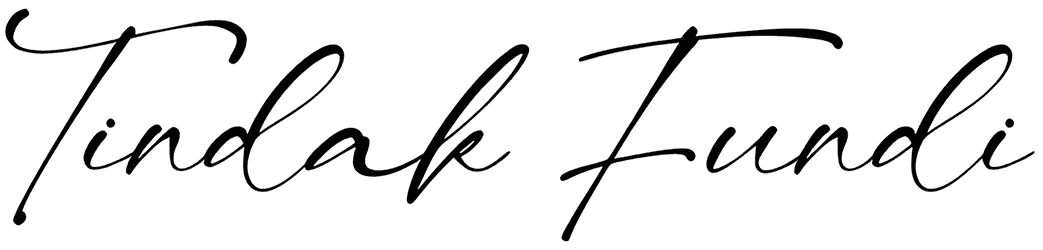
Tindak Fundi Font
If you’re one of those people who always pick handwritten fonts only when there’s casual text to design, Tindak Fundi can show you how wrong you were. Like, isn’t it obvious what an important role elegance plays in the design of this autograph font? Surely it is.
So let’s say you have a photo overlay to design for quotes, poems, or story content for the Instagram account of a fancy restaurant. Isn’t that exactly what Tindak Fundi is made for?